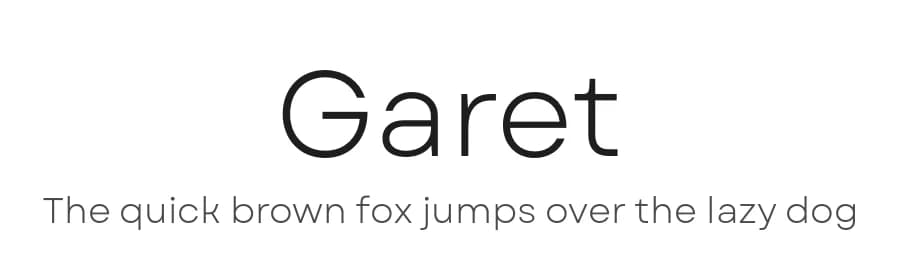
About Garet Font
Garet is a modern geometric sans serif.
It is characterised by high x-height, clean and soft letterforms with a smooth masculine tone.
Garet derives its distinctive oval shapes from the optically perfect circle and has closed counters to further emphasise that form.
| Designer | Stan Partalev, Mirela Belova |
Garet Font is a versatile sans-serif font that works for both headings and body text. Pair it with a contrasting serif or slab serif font to add visual interest and a clear distinction between titles and body copy.